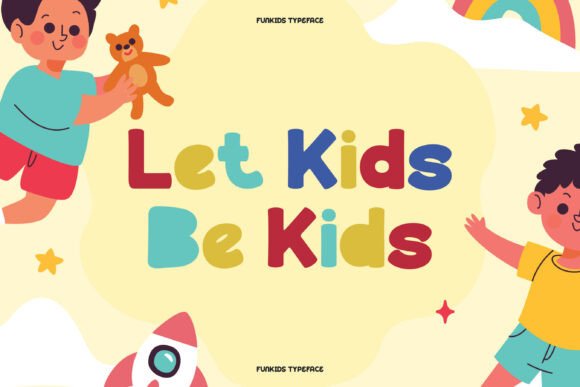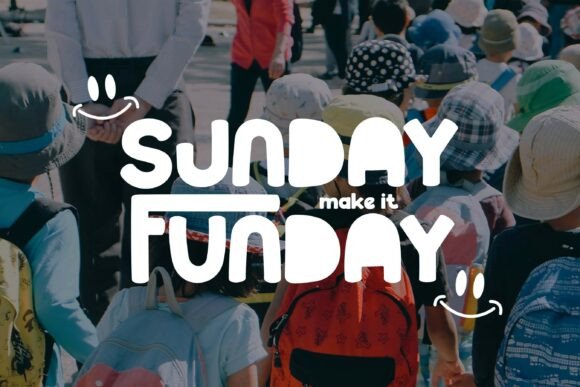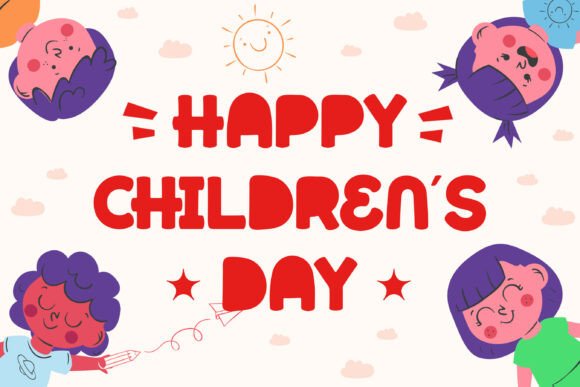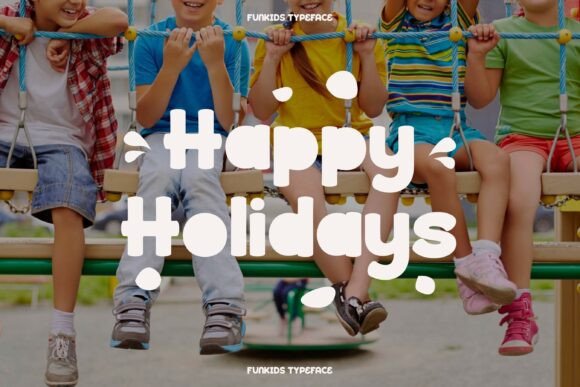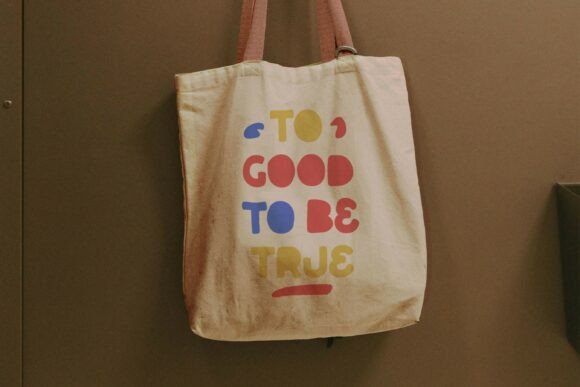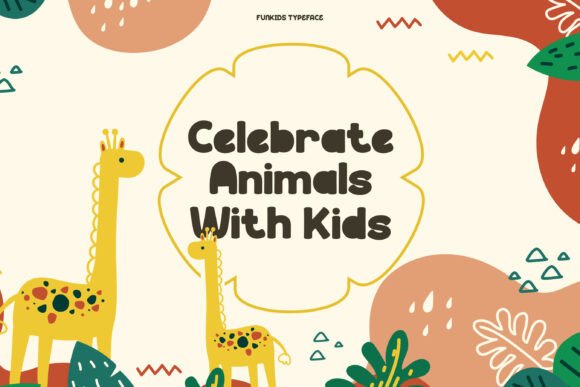
Introduction to Fun Kids Font
FUN KIDS is a bubbly and joyful typeface created to bring smiles and color into your design projects.
With its chubby shapes, rounded corners, and whimsical ligatures, FUN KIDS captures the innocence, creativity, and energy of childhood Whether youโ€™re designing for childrenโ€™s books, school posters, games, toys, or party invitations, this font adds the perfect splash of fun and friendliness.